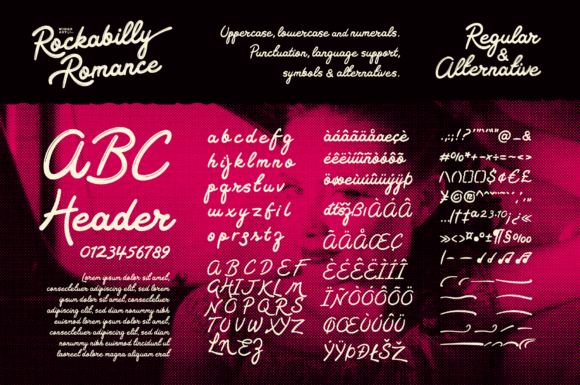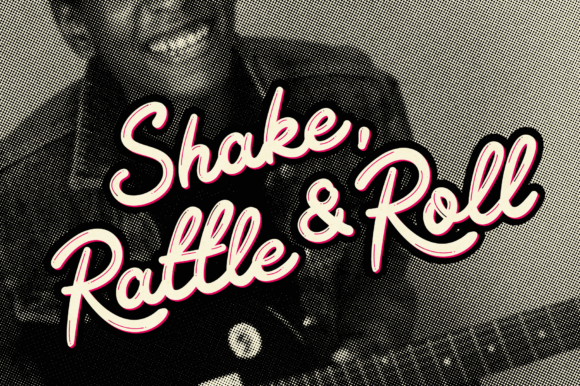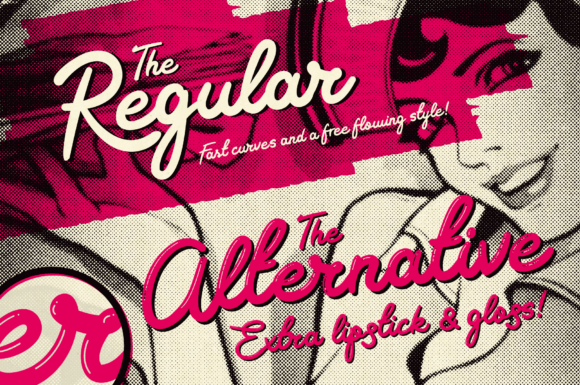
About Rockabilly Romance Font
Rockabilly Romance is a rebellious script font inspired by 1950s Americana. It’s designed to evoke the feel of bustling retro diners, drive-in movies and features a Rock ’n’ Roll attitude. This font is PUA encoded which means you can access all glyphs and swashes with ease!